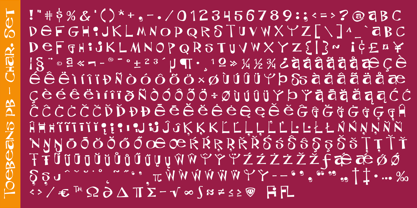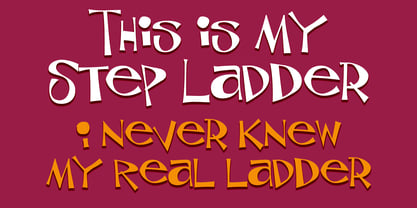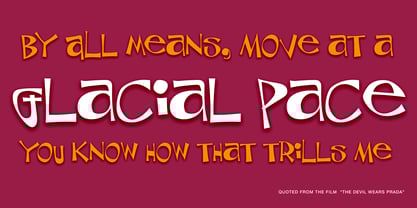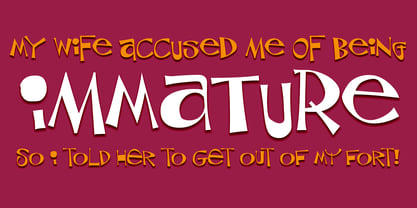
Toe Beans PB
by Pink Broccoli
The Toe Beans PB Font Family was designed by Phil Bracco and published by Pink Broccoli. Toe Beans PB contains 1 styles. More about this family
ToeBeans PB is a delightfully unconventional sans inspired by a quirky collection of late-1970s greeting cards. Its playful angles, uneven rhythms, and pseudo-unicase character set give every word a slightly mischievous personality — like a cat knocking something off the table just to see what happens. The shapes are lively, expressive, and just a little unpredictable, making typesetting feel more like play than work. ToeBeans PB shines in branding, editorial layouts, posters, and any project that embraces eccentric charm and handcrafted typographic personality.